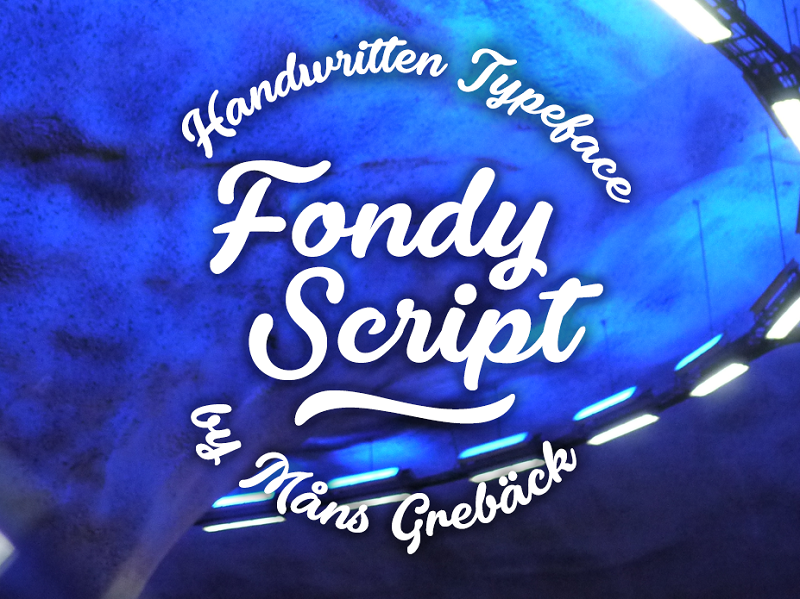
Fondy Script
Fondy Script Font
Fondy Script is a hand-drawn brush typeface, created by Måns Grebäck during 2018. It is a bold, sporty font in high quality, with soft and rounded characteristics.
Use ¤ after any word to create a decorative swash.